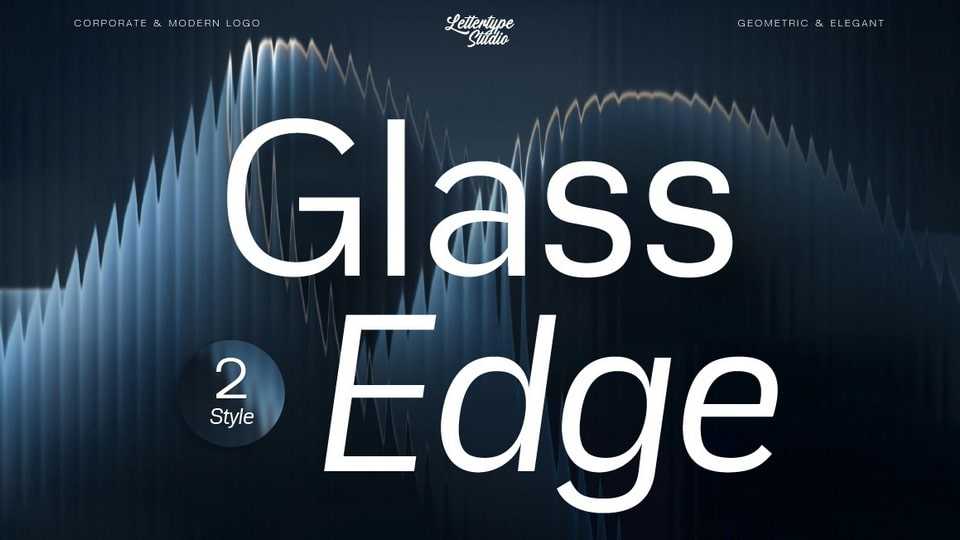
Download Glass Edge font, a modern grotesque sans-serif typeface designed for bold, professional branding influenced by the fluid, glass-like aesthetics.
Designer: Lettertype Studio